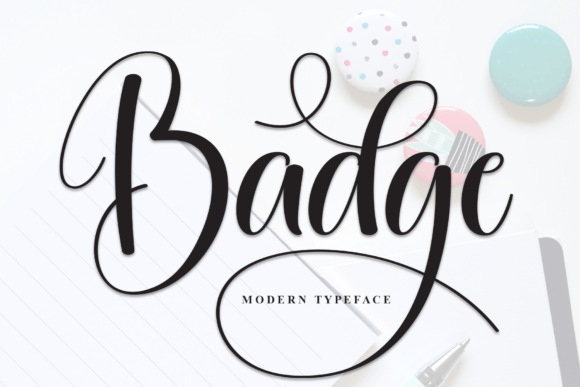
Introducing Badge Font: The Ultimate Elegance for Your Designs
In the world of typography, few fonts manage to capture the essence of elegance and style as effectively as the Badge Font. This beautifully crafted script font is designed to bring a touch of sophistication and refinement to a wide range of design projects, from wedding invitations and thank you cards to quotes, greeting cards, logos, and business cards. With its stunning appearance and versatile application, Badge Font is an excellent choice for designers and crafters looking to add a handwritten touch to their work.
What Makes Badge Font Stand Out?
Badge Font is distinguished by its incredibly elegant and stylish script. Each letter is carefully designed to flow smoothly into the next, creating a fluid and harmonious look that is both visually appealing and highly readable. The font’s unique character and charm make it perfect for designs that require a personal touch, such as wedding invitations, where the elegance of the font can complement the joy and beauty of the occasion.
Versatility of Badge Font
One of the key advantages of Badge Font is its versatility. It is not limited to a specific type of design but can be used across a broad spectrum of projects. Here are some of the areas where Badge Font truly shines:
- Wedding Invitations: The font’s elegant and sophisticated look makes it an ideal choice for wedding invitations, setting the tone for a classy and memorable event.
- Thank You Cards: Adding a personal touch to thank you cards, Badge Font helps convey gratitude with style and warmth.
- Quotes: The beautiful script of Badge Font brings quotes to life, making them perfect for sharing on social media, blogs, or as standalone graphics.
- Greeting Cards: Whether it’s a birthday, anniversary, or holiday greeting, Badge Font adds a touch of elegance to any card.
- Logos: For businesses looking for a logo that communicates sophistication and refinement, Badge Font can be a great choice.
- Business Cards: Stand out with a stylish business card that uses Badge Font for a professional yet personal look.
Why Choose Badge Font?
There are several reasons why designers and crafters choose Badge Font for their projects:
- Elegance: The font exudes elegance, making it suitable for designs that require a sophisticated look.
- Readability: Despite its elegant and cursive nature, Badge Font remains highly readable, even at smaller sizes.
- Uniqueness: It offers a unique style that can help your designs stand out from the crowd.
- Versatility: As mentioned, its versatility allows it to be used in a wide range of design projects.
How to Use Badge Font Effectively
To get the most out of Badge Font, consider the following tips:
- Pair with Complementary Fonts: When using Badge Font alongside other fonts, choose fonts that complement its elegance without overpowering it.
- Adjust Letter Spacing: For optimal readability and aesthetics, adjust the letter spacing according to the size and type of your design.
- Choose Appropriate Colors: Select colors that enhance the elegance of the font. Pastels, neutrals, and metallic colors often work well.
- Consider Size and Weight: Make sure the font size and weight are appropriate for your design. Sometimes, a bold version of the font can add more impact, while at other times, a lighter version may be more suitable.
Badge Font is a stylish and incredibly elegant script font that brings a touch of sophistication to any design project. Its versatility, readability, and unique charm make it an excellent choice for a wide range of applications, from wedding invitations and greeting cards to logos and business cards. By choosing Badge Font, designers and crafters can elevate their work, adding a personal and elegant touch that captivates and impresses. Whether you’re looking to create beautiful wedding invitations or a professional logo, Badge Font is a valuable addition to your typography arsenal.
- Q: Is Badge Font suitable for body text?
- A: While Badge Font is elegant and highly readable, it’s best used for headings and short passages of text due to its script nature.
- Q: How can I get the most out of Badge Font?
- A: Experiment with different sizes, colors, and pairings with other fonts. Also, consider the context of your design to ensure the font complements the overall aesthetic.